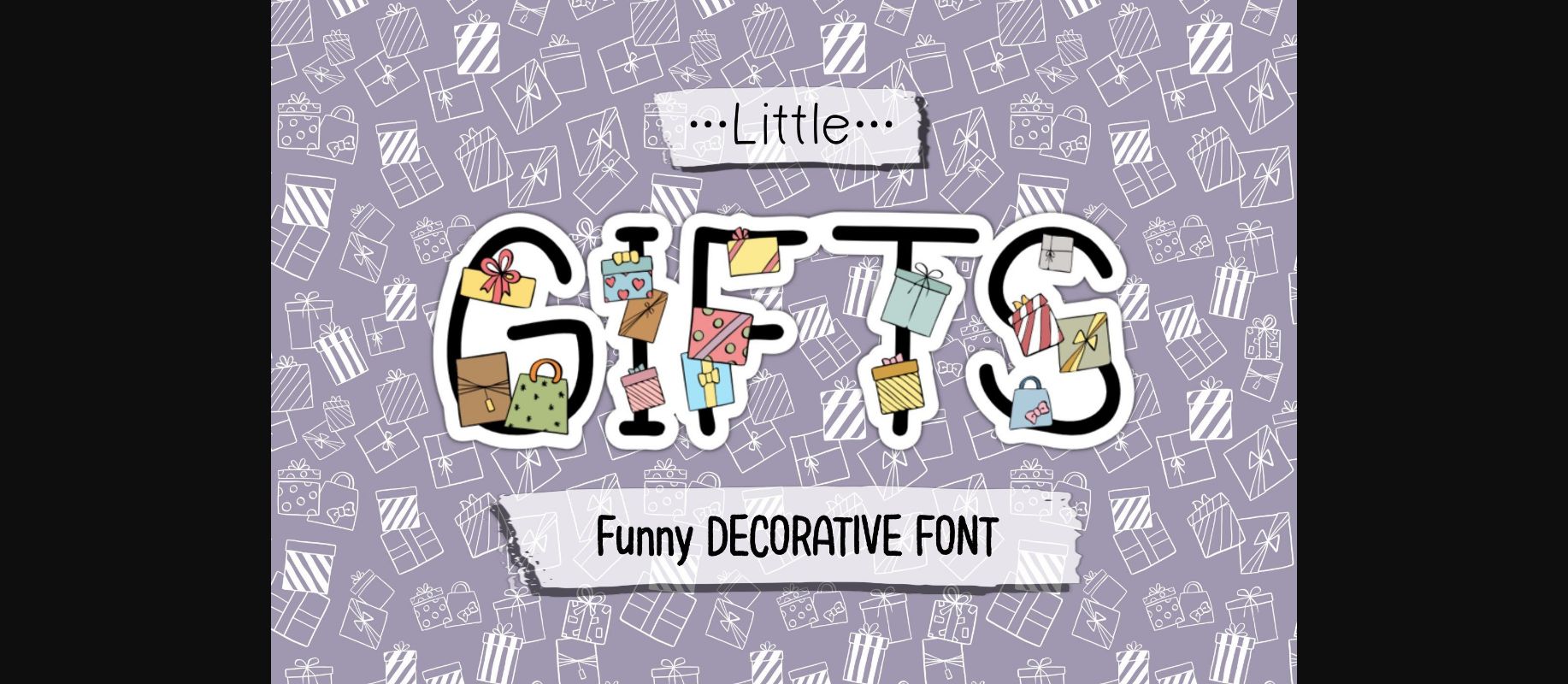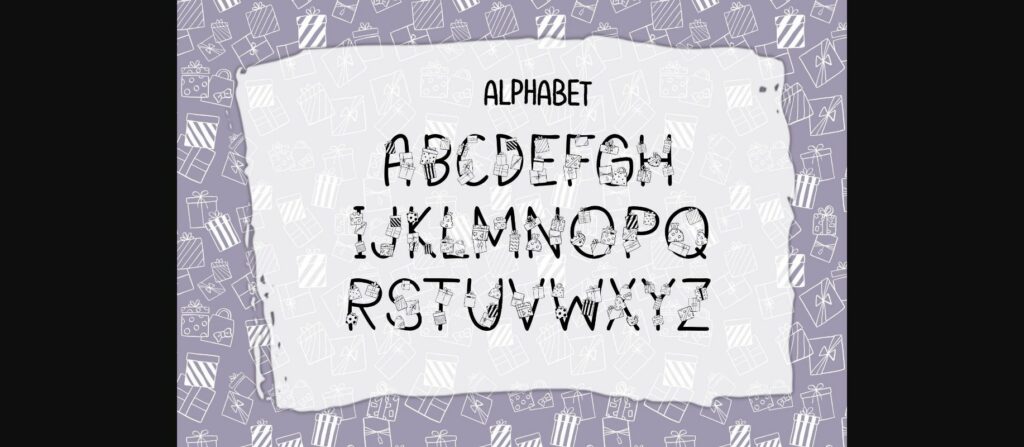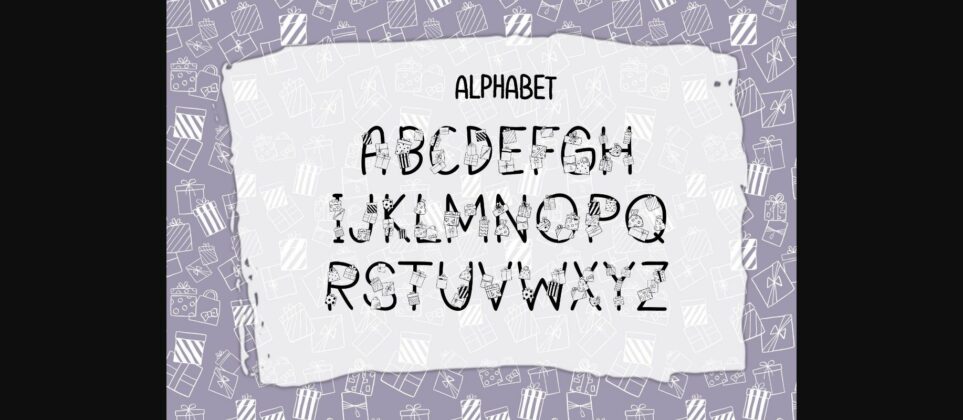
About Little Gifts Font
Little Gifts is a funny decorative font. This font is the perfect fit for all of your logos, branding, social media, crafty DIY projects, and much more!